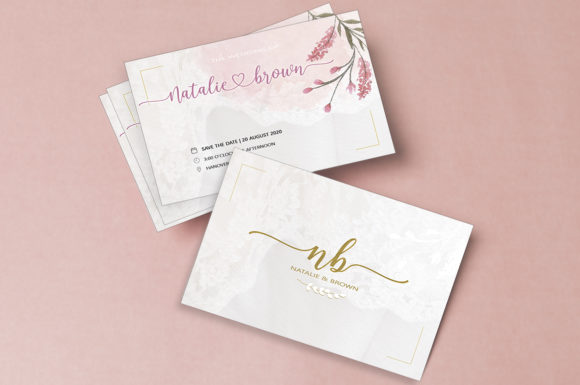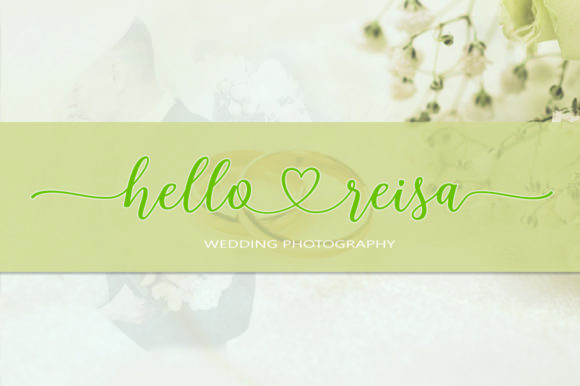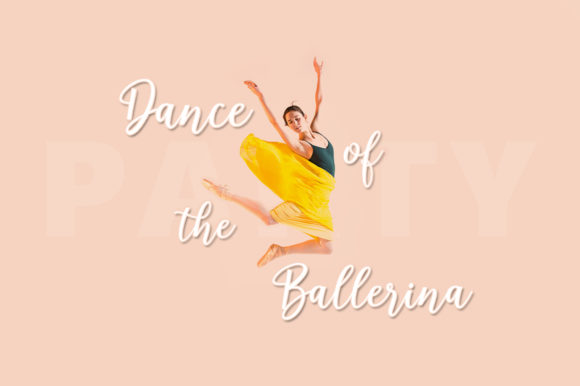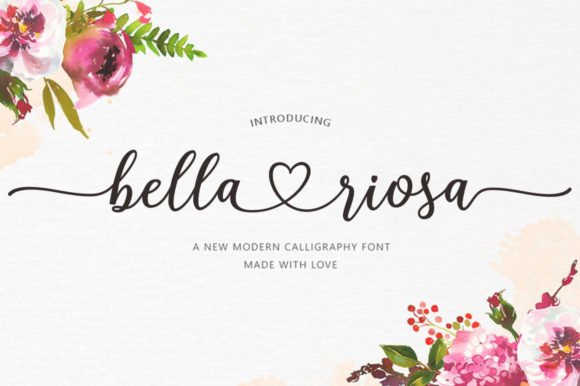
Introduction to Bella Riosa Font
Bella Riosa is a lovely and timeless handwritten font.
It is the best choice for creating eye catching logos, branding and quotes This font is PUA encoded which means you can access all of the glyphs and swashes with ease.
Key Features of Bella Riosa Font